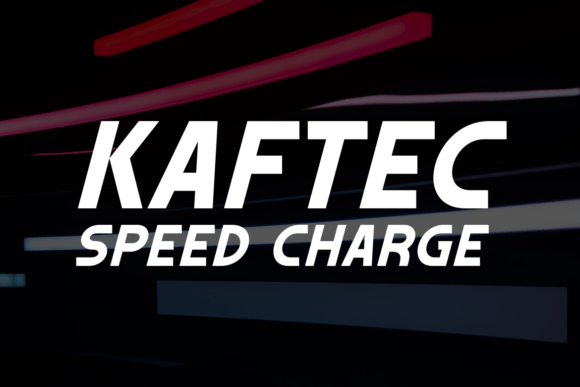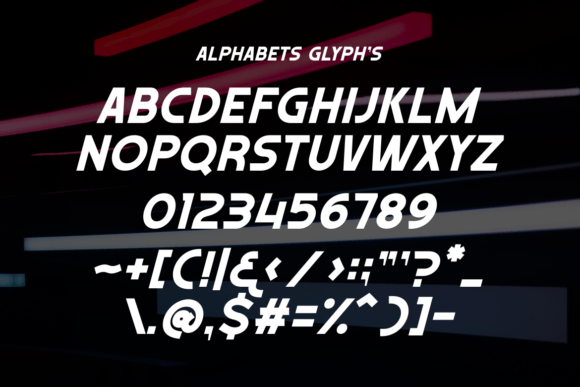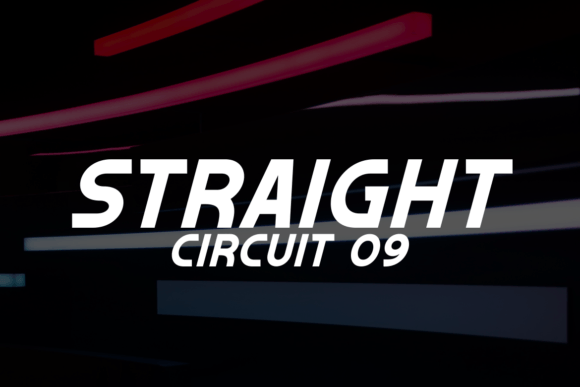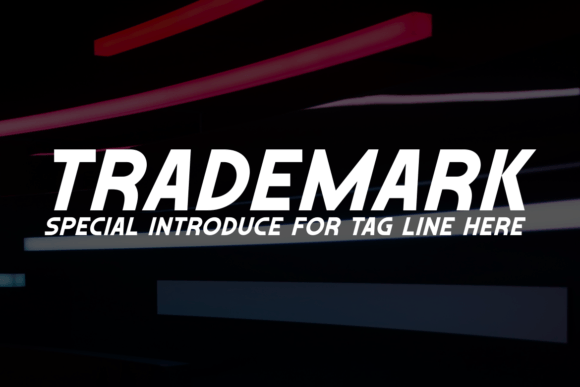
The Ultimate Design Game-Changer: Dekafes Font
I’ll never forget the time I was working on a project for a bold and edgy client, and I was struggling to find the perfect font to match their brand personality. I had spent hours scouring through font libraries, but nothing seemed quite right. That was until I stumbled upon Dekafes Font. 💥
This bold and assertive sans serif font has been a game-changer for my design projects, and I’m excited to share my experience with you. Whether you’re a designer, crafter, or creative hobbyist, Dekafes Font is an incredible asset to have in your font library.
An Honest Review of Dekafes Font
- 💯 **Bold and assertive**: Dekafes Font makes a statement, and that’s exactly what I love about it. It’s perfect for headlines, titles, and any design project that needs a confident and edgy touch.
- ✅ **Versatile**: This font works well with a variety of design styles, from modern and minimalist to bold and playful.
- 🌈 **Highly legible**: Despite its boldness, Dekafes Font remains highly legible, even at smaller font sizes.
- ⚠️ **Limited font weights**: Dekafes Font currently only offers a few font weights, which may limit its use in certain design projects.
- 🤔 **Some glyphs may require adjustment**: Depending on the design project, some glyphs may require manual adjustment to ensure proper spacing and alignment.
- Experiment with OpenType features, such as **Stylistic Alternates**, to add more personality to your design.
The Designer Inspiration Behind Dekafes Font
Dekafes Font was designed with the goal of creating a bold and assertive sans serif font that would make a statement in any design project. The designer, inspired by modern typography and geometric shapes, aimed to create a font that would be both versatile and highly legible.
Q: What is Dekafes Font?
A: Dekafes Font is a bold and assertive sans serif font designed for use in a variety of design projects.
Q: What design projects is Dekafes Font best suited for?
A: Dekafes Font is best suited for design projects that require a bold and assertive font, such as headlines, titles, and advertising materials.
Q: Is Dekafes Font easy to read?
A: Yes, Dekafes Font is highly legible, even at smaller font sizes, making it suitable for use in a variety of design projects.